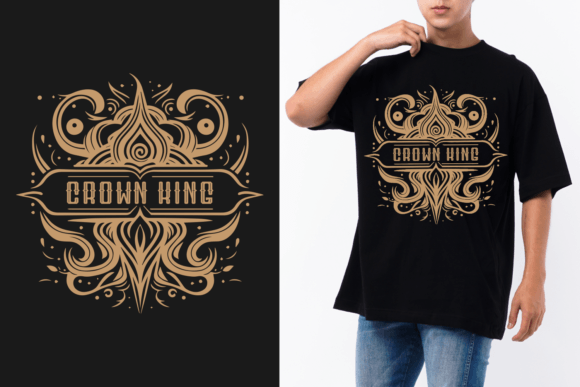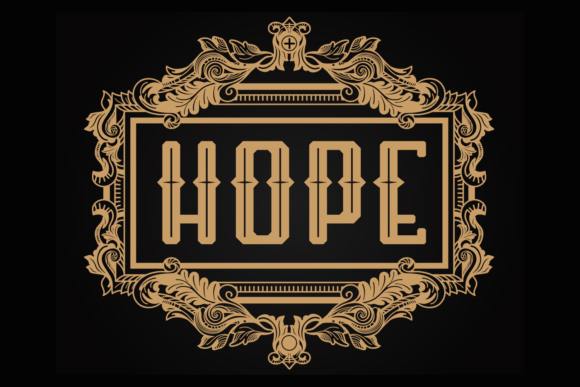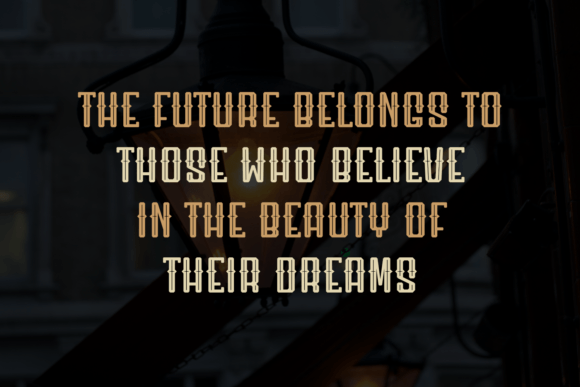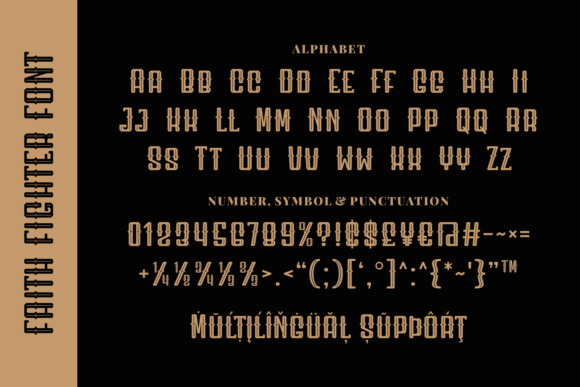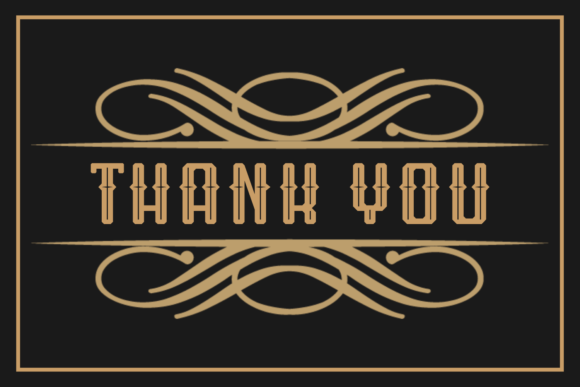
Faith Fighter Font: A Bold Blackletter with a Spiritual Twist
In the world of typography, fonts play a crucial role in conveying the tone and message of a project. For designers and crafters looking for a font that embodies strength, tradition, and a touch of spirituality, Faith Fighter Font is an excellent choice. This bold blackletter font incorporates subtle cross-like shapes within its letterforms, making it a unique and powerful addition to any design.
The Inspiration Behind Faith Fighter Font
Faith Fighter Font draws inspiration from the traditional blackletter typography, known for its dramatic and bold appearance. Blackletter fonts have been used for centuries in various contexts, including medieval manuscripts, Gothic architecture, and even modern-day branding. However, Faith Fighter Font takes this classic style to the next level by incorporating subtle cross-like shapes within its letterforms.
This design element adds a symbolic, spiritual touch to the font, making it an ideal choice for projects that seek to evoke faith, power, and a sense of reverence. Whether you’re working on a branding project, apparel design, or religious artwork, Faith Fighter Font is versatile enough to make a lasting impact.
Design Features of Faith Fighter Font
Faith Fighter Font boasts a range of design features that make it a standout choice for designers and crafters. Some of its key features include:
- Bold Blackletter Style: Faith Fighter Font features a bold, dramatic blackletter style that’s perfect for making a statement.
- Subtle Cross-Like Shapes: The font’s letterforms incorporate subtle cross-like shapes, adding a symbolic, spiritual touch to the design.
- High Contrast: The font’s high contrast between thick and thin strokes creates a sense of drama and elegance.
- Versatile: Faith Fighter Font is versatile enough for use in a range of projects, from branding and apparel to religious artwork and more.
Uses for Faith Fighter Font
Faith Fighter Font is a versatile font that can be used in a variety of projects, including:
- Branding: Use Faith Fighter Font to create a bold, memorable brand identity that evokes faith and power.
- Apparel: Design eye-catching apparel, such as t-shirts, hoodies, and hats, with Faith Fighter Font.
- Religious Artwork: Create stunning religious artwork, such as posters, flyers, and brochures, with Faith Fighter Font.
- Packaging: Use Faith Fighter Font to create bold, attention-grabbing packaging for products.
Tips for Using Faith Fighter Font
To get the most out of Faith Fighter Font, here are some tips to keep in mind:
- Use it sparingly: Faith Fighter Font is a bold font, so use it sparingly to avoid overwhelming the design.
- Pair it with contrasting fonts: Pair Faith Fighter Font with contrasting fonts to create visual interest and hierarchy.
- Experiment with colors: Faith Fighter Font looks great in a range of colors, so experiment to find the perfect combination for your design.
Faith Fighter Font is a bold, versatile font that’s perfect for designers and crafters looking to add a touch of faith and power to their projects. With its unique design features, high contrast, and symbolic, spiritual touch, Faith Fighter Font is an excellent choice for a range of applications. Whether you’re working on a branding project, apparel design, or religious artwork, Faith Fighter Font is sure to make a lasting impact.